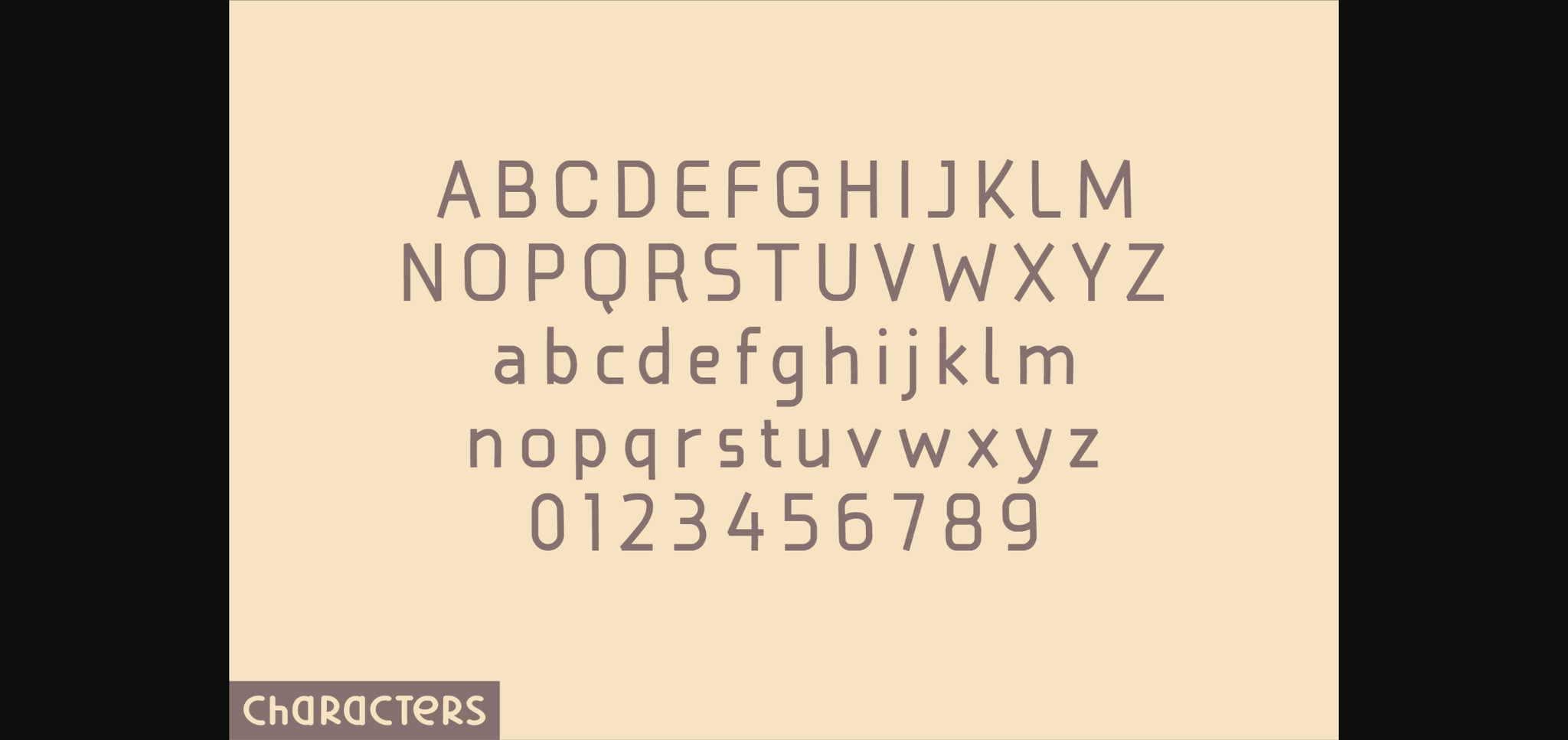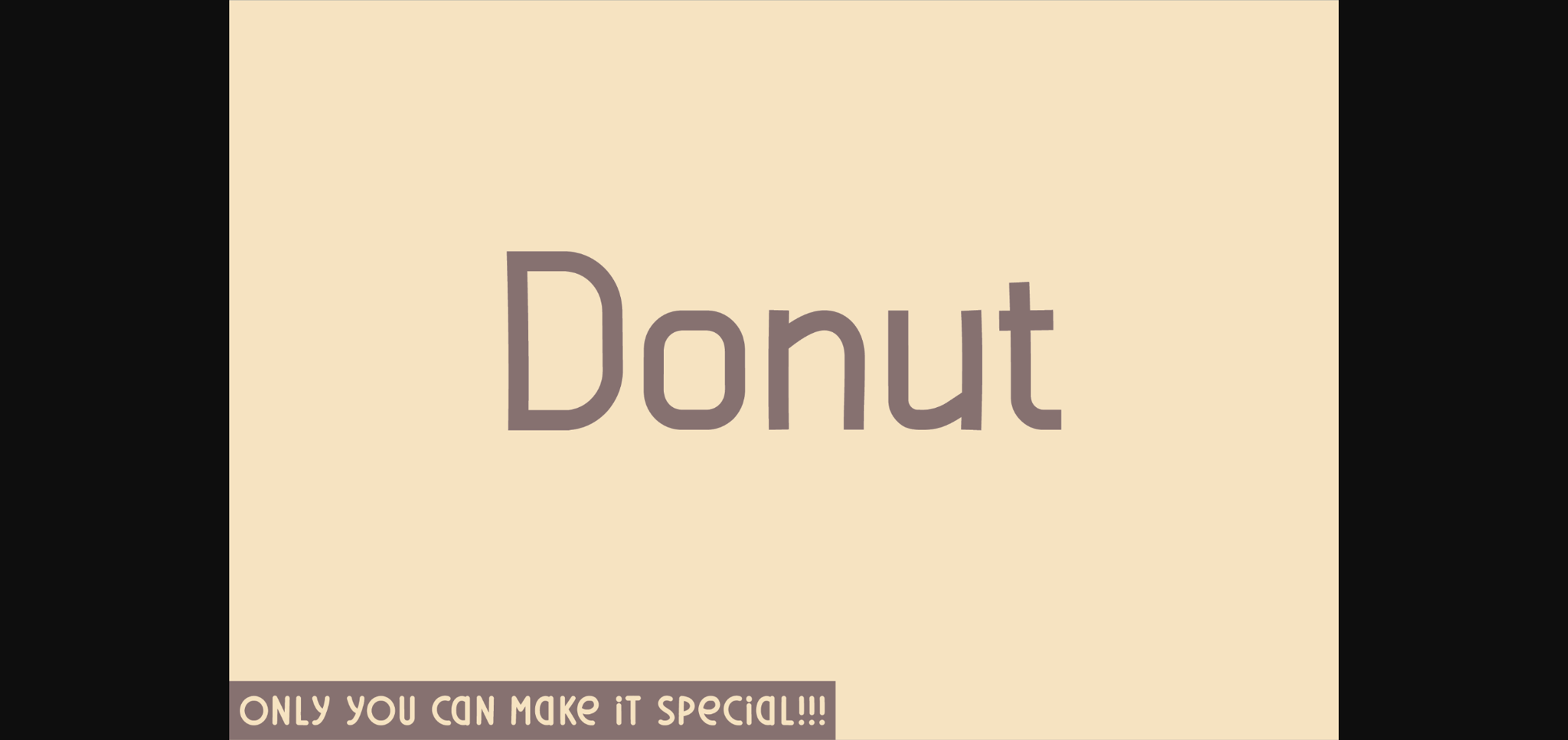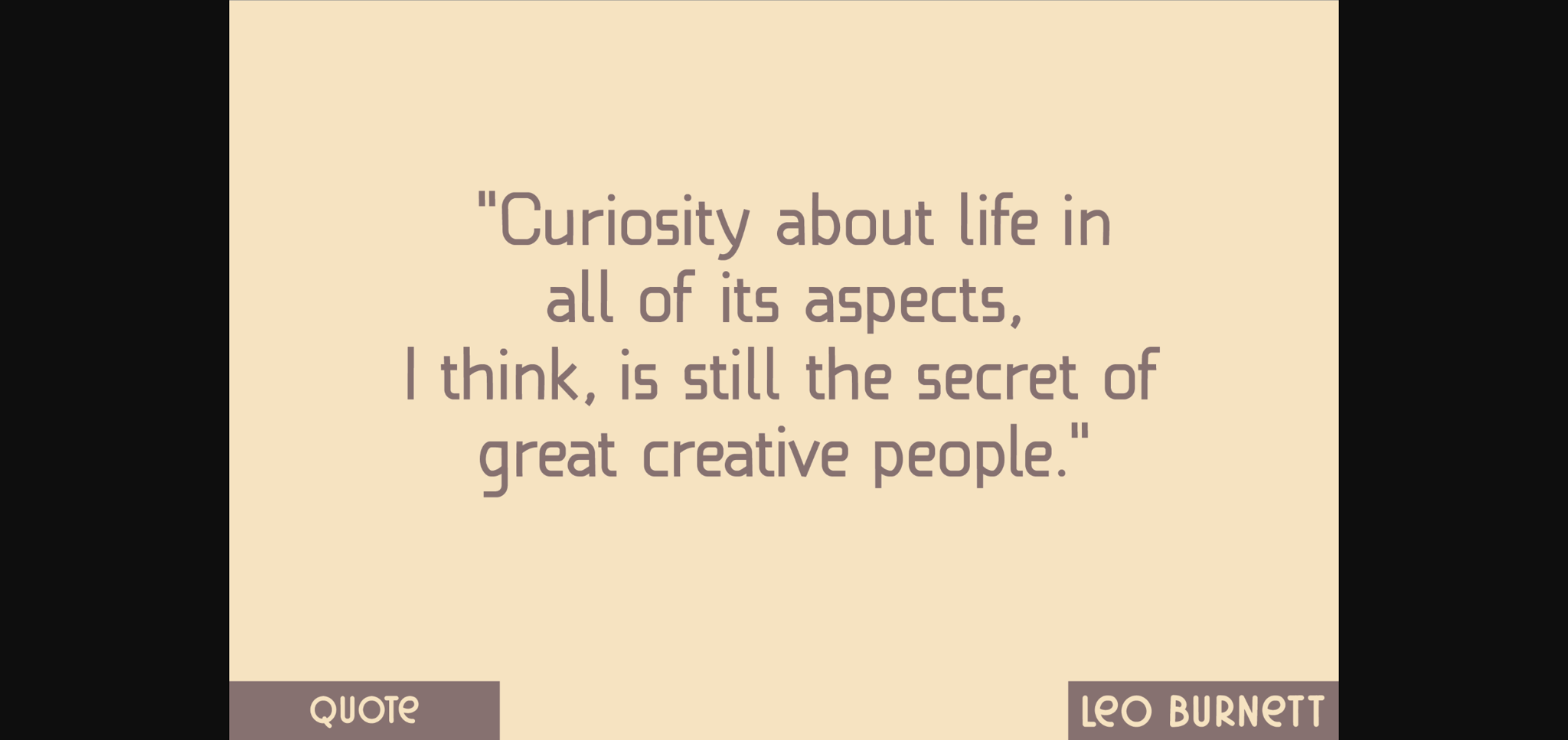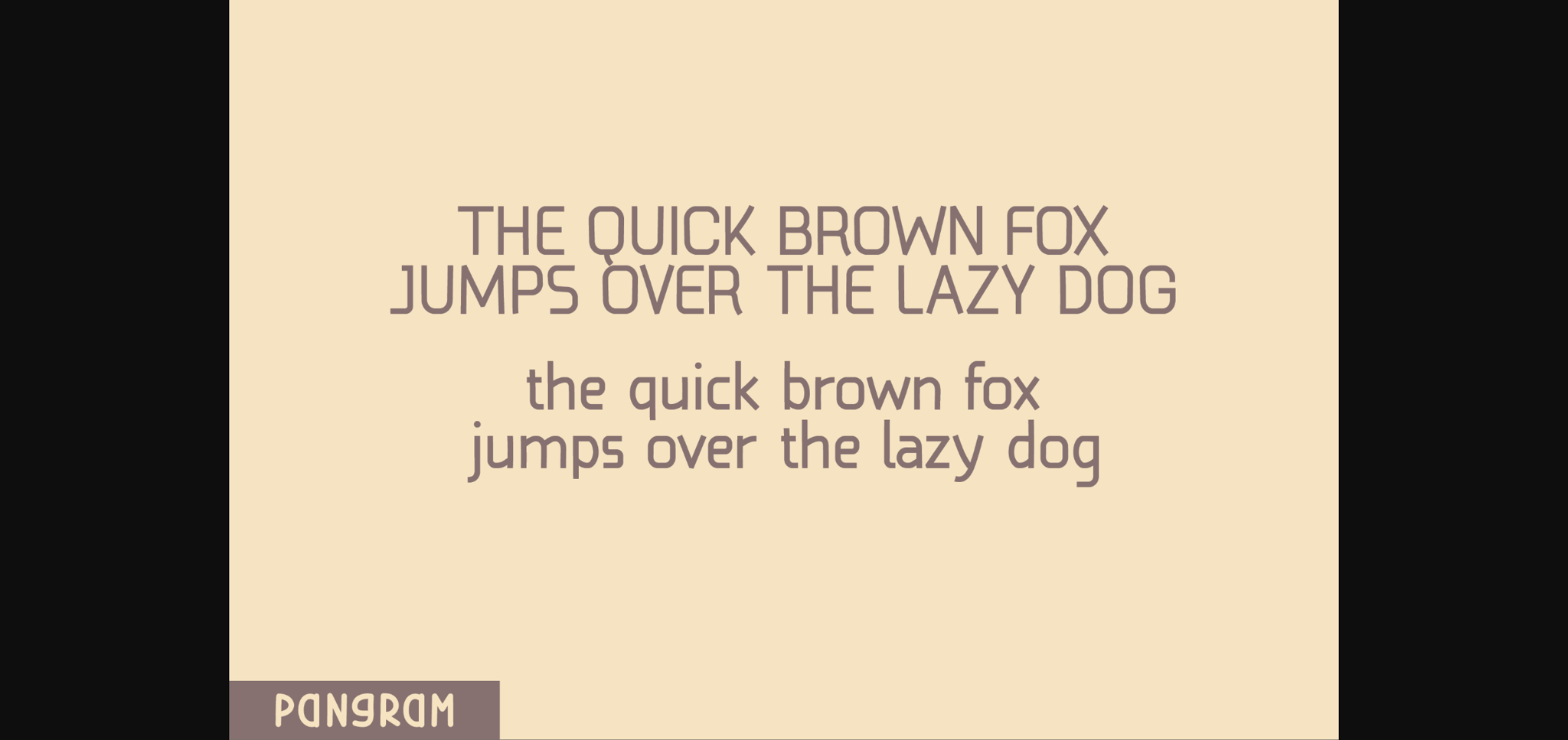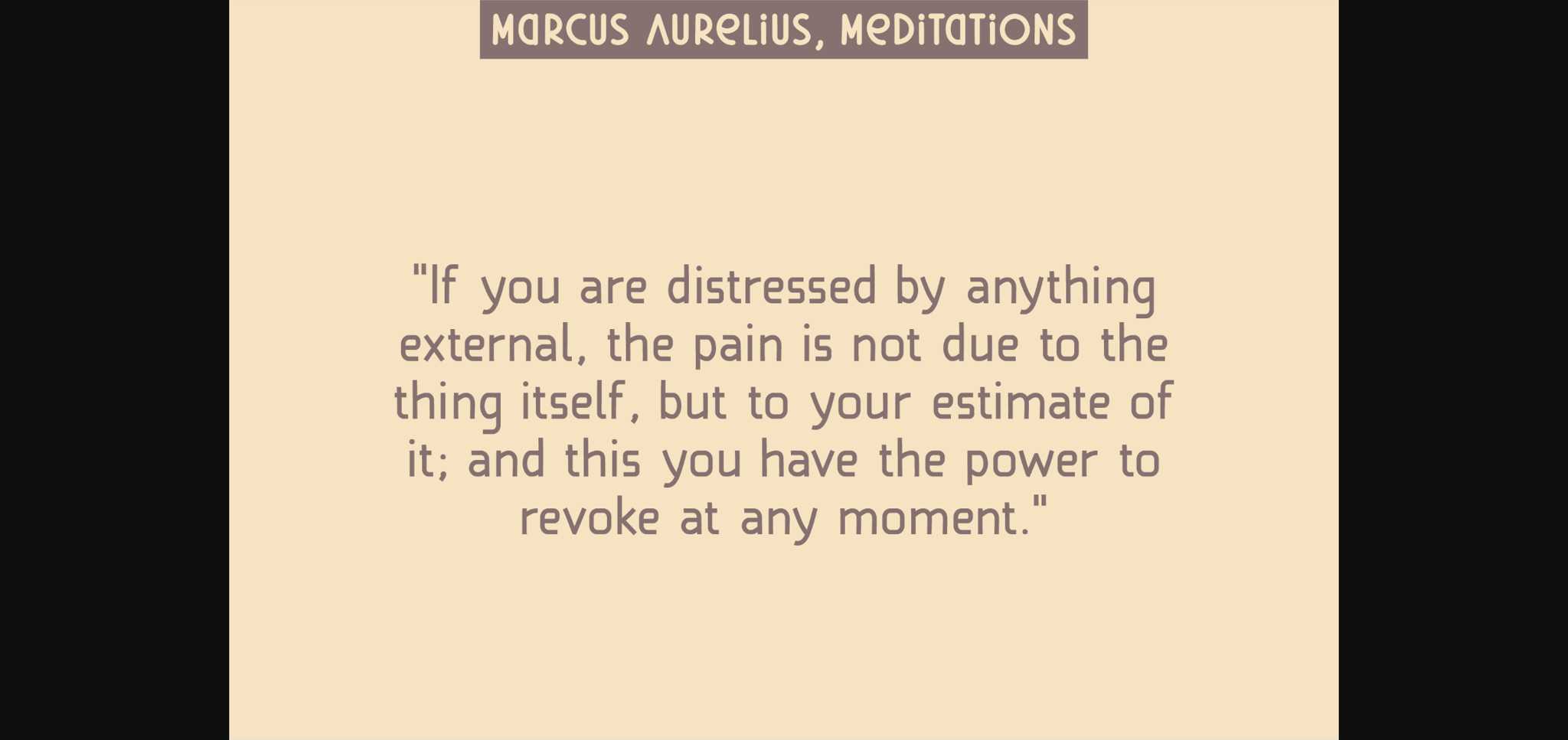
HomeSans Serif FontsDonut Font Sans Serif Fonts Donut Font FacebookXPinterestWhatsApp 1 of 7 ... Donut Font Poster 2... Donut Font Poster 3... Donut Font Poster 4... Donut Font Poster 5... Donut Font Poster 6... Donut Font Poster 7... About Donut Font Donut is a natural sans serif font created without changing a single node in each character’s indentation – this makes this font very interesting and unique. Perfect for quotes, notes, tees, and any product design. DOWNLOAD NOW People also explored Food Chicken Font Bokeseni SemiBold Condensed Italic Font Tsukiyama Font Conquer Font Girly Stuff Font Qurban Font Cicle Font Zara Amorett Font Festive Font 278 0 TagsDonutDonut Font Previous articleRicotta Stregata FontNext articlePudding Font LEAVE A REPLY Cancel reply Comment: Please enter your comment! Name:* Please enter your name here Email:* You have entered an incorrect email address! Please enter your email address here Website: Save my name, email, and website in this browser for the next time I comment. Personal Use Free Open Heart Personal Use Free Read more about this font Bebas Neue Font Personal Use Free Read more about this font Motherblood Personal Use Free Read more about this font Blue Highway Personal Use Free Read more about this font BLOG How to Install and Use Fonts on Windows, macOS, and Web Projects How to Install and Use Fonts on Windows, macOS, and Web Projects Fonts are a crucial part of design and branding. Whether you’re designing a... Transform Your Website: Elevate Your Typography with 7 Best Web Font Generators To increase your work productivity, choose the most readable fonts. Top 10 Handwritten Fonts That Elevate Your Designs